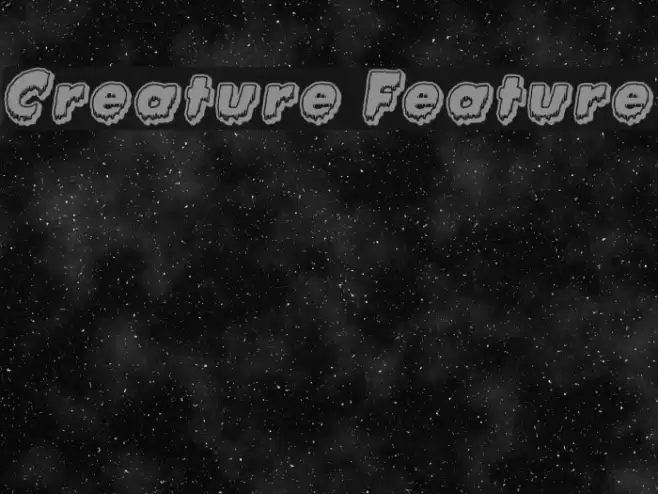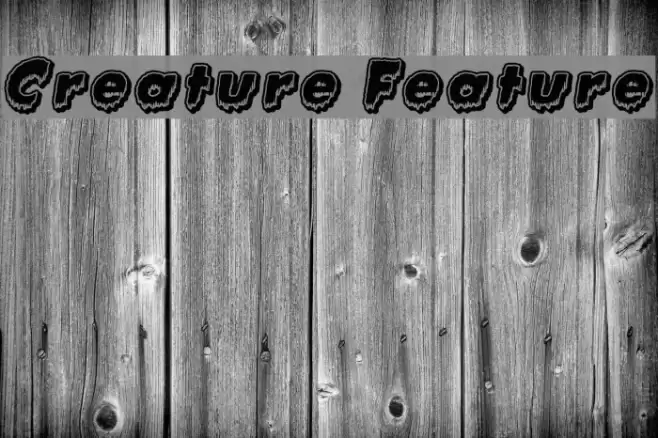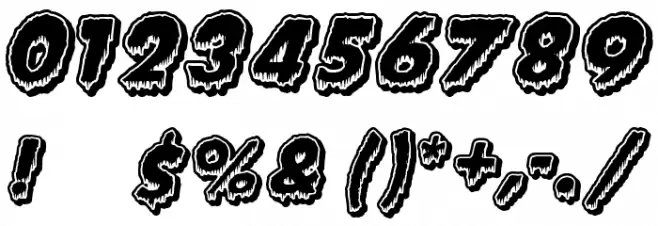
Creature Font
Creature Feature Description
This font features a bold, playful design with a distinct dripping effect that gives it a spooky, horror-themed appearance. The characters are thick and rounded, with an uneven, organic texture that mimics the look of melting or oozing material. This style is consistent across uppercase and lowercase letters, as well as numbers and special characters. The font's unique aesthetic makes it ideal for creating eye-catching titles and graphics, particularly for Halloween or horror-themed projects.
A bold, dripping font with a spooky, horror-themed design from Horror fonts.